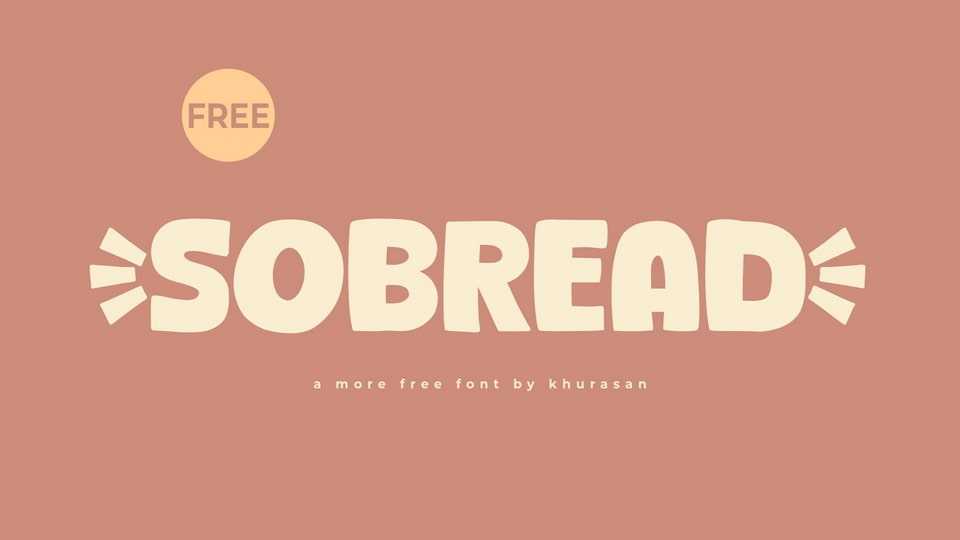
Download Sobread font, a bold, friendly, and irresistibly playful handcrafted typeface that brings a burst of joy and personality to your designs. Every letter in Sobread font is a vibrant expression of creativity, as if plucked from the colorful pages of a beloved comics or an children’s book.